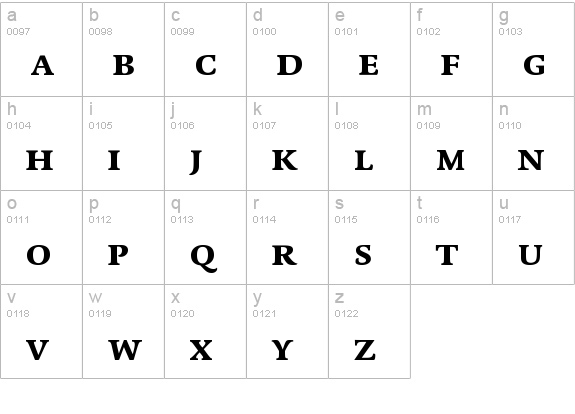
DTLDorianTCaps-Bold is a strong, high-contrast variant in the DTLDorianTCaps typeface family \xE2\x80\x94 well suited to headlines, attention-grabbing titles, and strong calls-to-action.
The DTLDorianTCaps-Bold font is a modern and bold typeface that exudes strength and sophistication. Its clean lines and sharp edges make it perfect for headlines, logos, and branding projects that require a strong and impactful aesthetic. This font strikes the perfect balance between elegance and assertiveness, making it a versatile choice for a wide range of design applications. What sets DTLDorianTCaps-Bold apart is not only its striking appearance but also the fact that it is available for free download at FontsMarket.com. This means that designers and creatives can easily access this high-quality font without any cost, allowing them to enhance their projects with a touch of professionalism and style. Whether you're working on a website, poster, or packaging design, DTLDorianTCaps-Bold is sure to make a bold statement and elevate your project to the next level. Don't miss out on this fantastic opportunity to add a touch of sophistication to your designs with this exceptional font that is just a click away at FontsMarket.com.